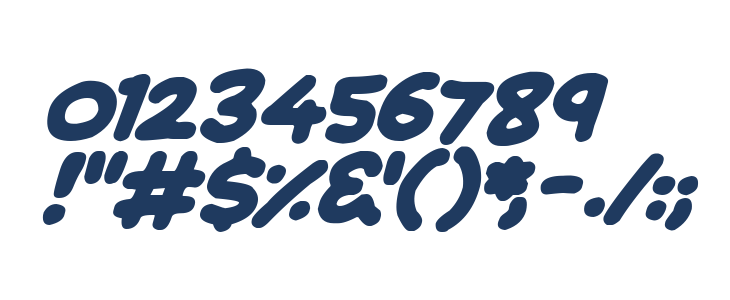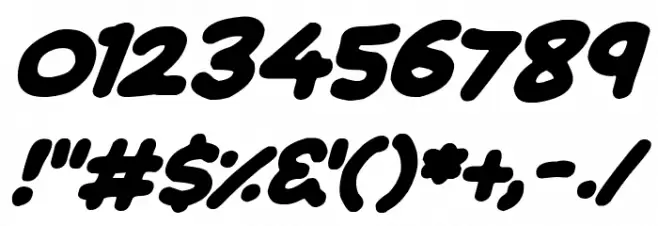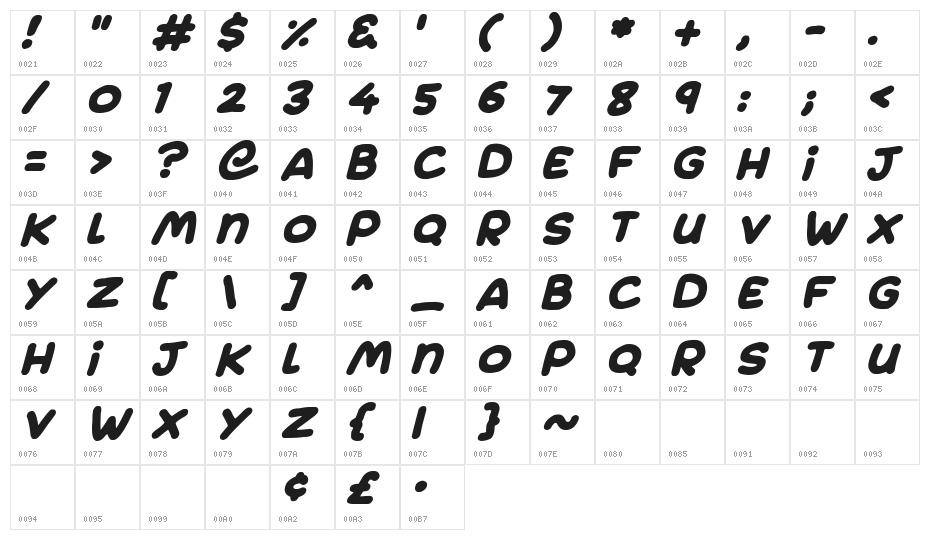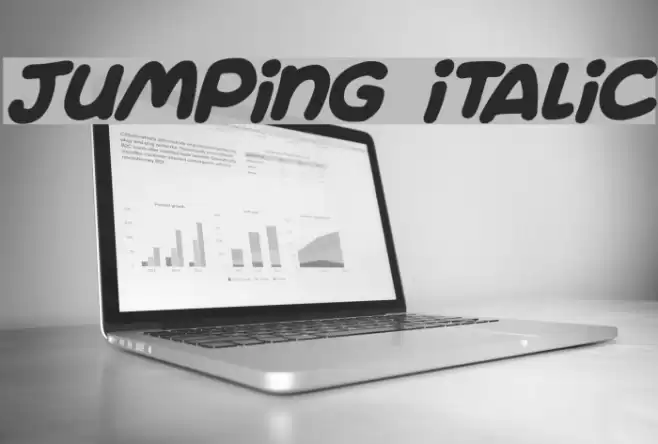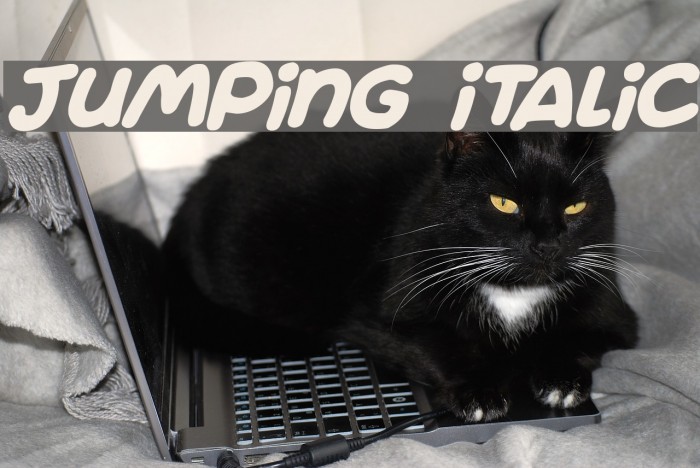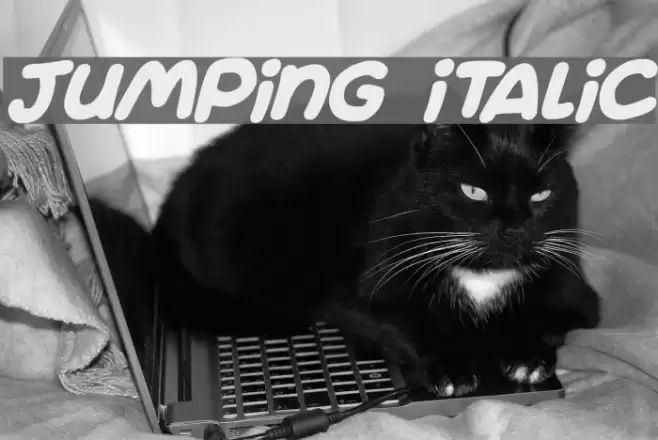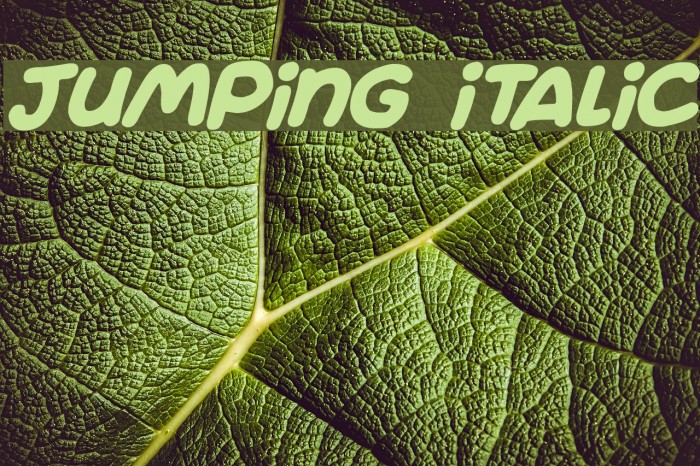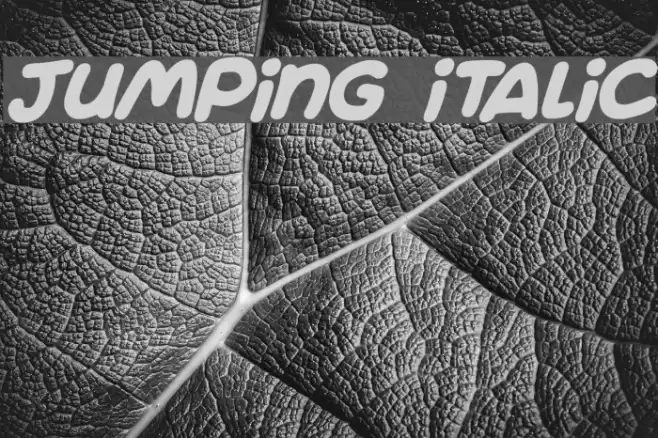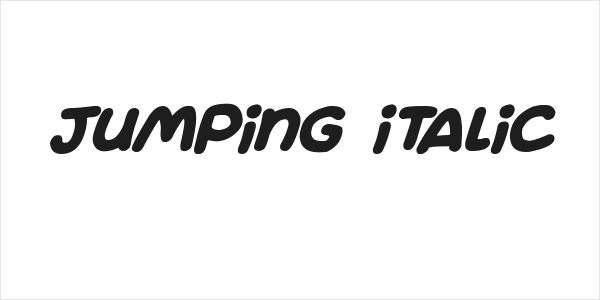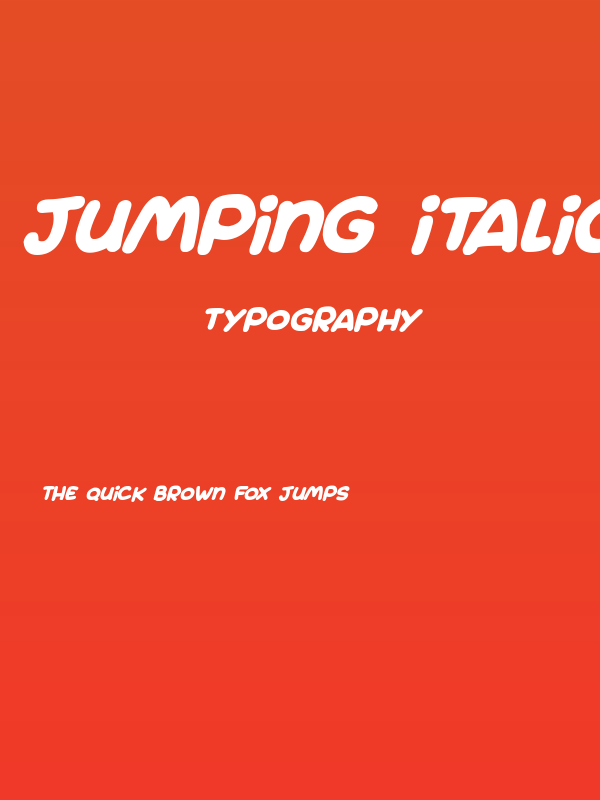
Jumping Italic Font
Jumping Italic Description
This playful and dynamic font features a bold, italic style with rounded edges, giving it a friendly and approachable appearance. The characters are slightly slanted, enhancing the sense of movement and energy. The strokes are thick and consistent, providing a strong visual impact. The font maintains a uniform weight throughout, ensuring readability while adding a touch of whimsy. The spacing between characters is tight, which contributes to its compact and cohesive look. This font is ideal for projects that require a lively and informal tone.
| Proposed Projects | Perfect for children's books, playful branding, event posters, and social media graphics. |